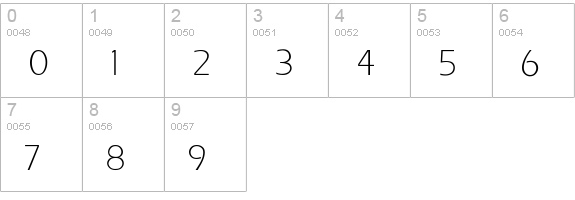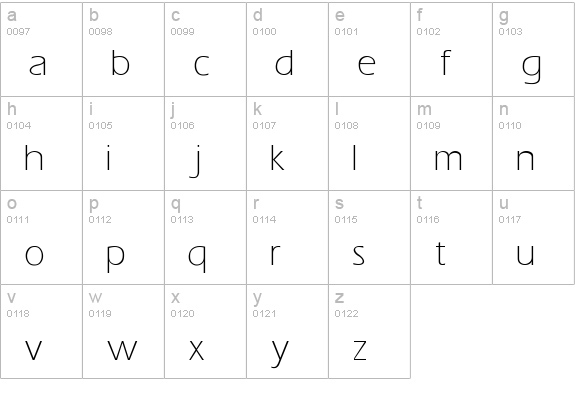
Tili-Light-Light Font Details
Tili-Light-Light is a refined, elegant variant in the Tili typeface family \xE2\x80\x94 well suited to elegant body text, refined sub-headings, and luxury branding.
Introducing Tili-Light-Light font, a stunning and versatile typeface that combines elegance and modernity. With its delicate and graceful letterforms, this font exudes a sense of sophistication and refinement, making it the perfect choice for a wide range of design projects. Tili-Light-Light font is meticulously crafted to ensure legibility and clarity, making it ideal for both print and digital applications. Its clean and crisp lines create a sense of professionalism and readability, ensuring that your message is conveyed effortlessly. This font's versatility shines through in its ability to adapt to various design styles and contexts. Whether you're working on a logo, branding materials, packaging, or editorial design, Tili-Light-Light font will effortlessly elevate your project and leave a lasting impression. But what sets Tili-Light-Light font apart is its availability as a free download on FontsMarket.com. Yes, you read that right - this exceptional font can be yours at no cost. Now, you can enjoy the beauty and elegance of Tili-Light-Light font without breaking the bank. FontsMarket.com is a trusted source for high-quality fonts, and with just a few clicks, you can access Tili-Light-Light font and add it to your font library. So why wait? Enhance your designs with this exquisite font and let your creativity soar. Download Tili-Light-Light font today and unlock a world of possibilities. Whether you're a professional designer or a creative enthusiast, this font will undoubtedly become a staple in your collection. Don't miss out on the opportunity to elevate your designs with the timeless beauty of Tili-Light-Light font.